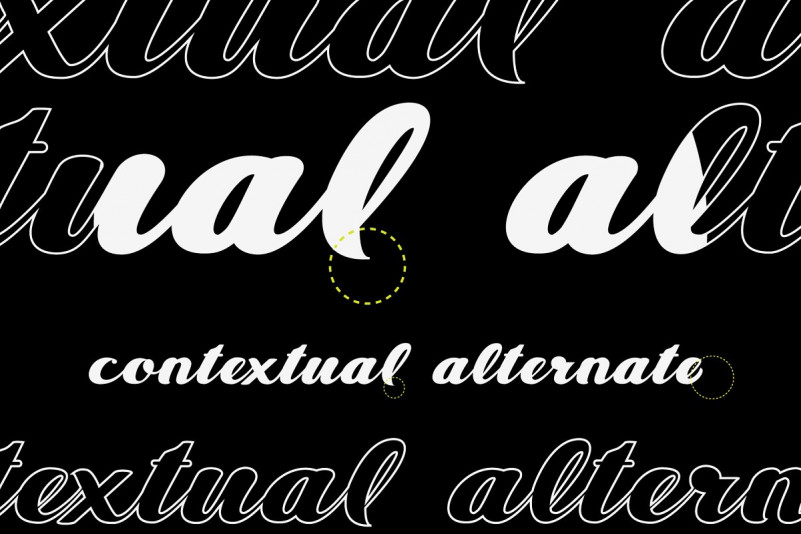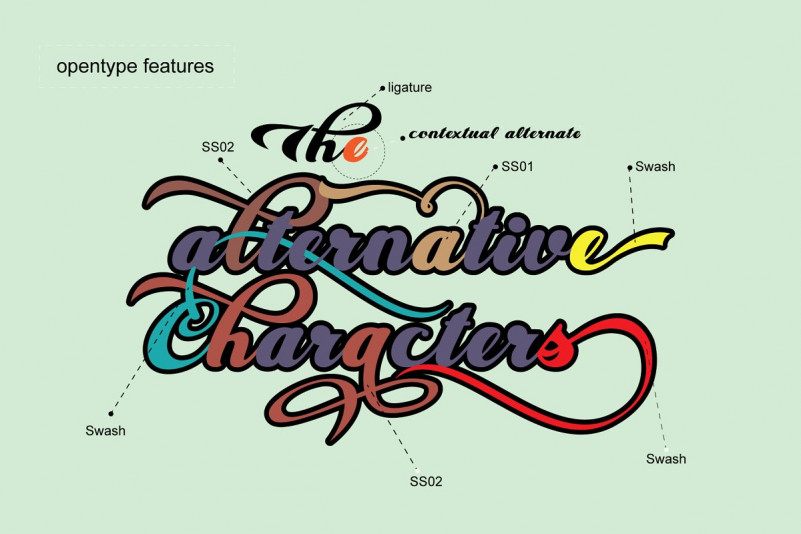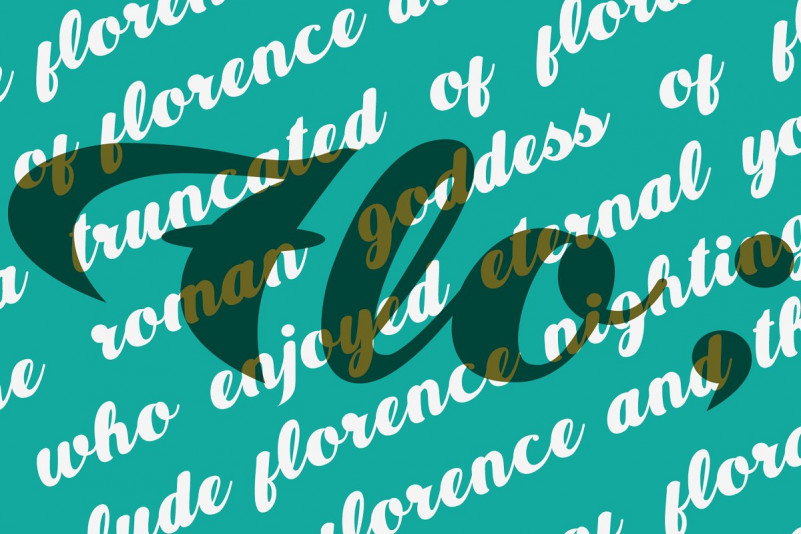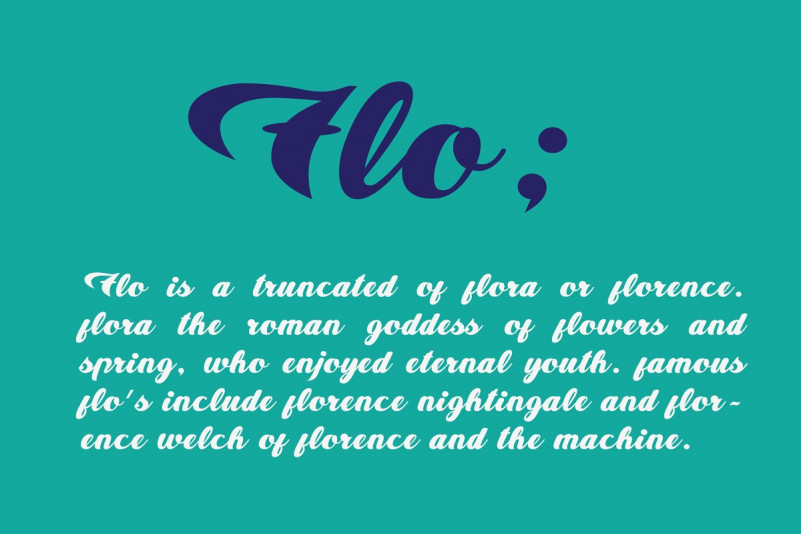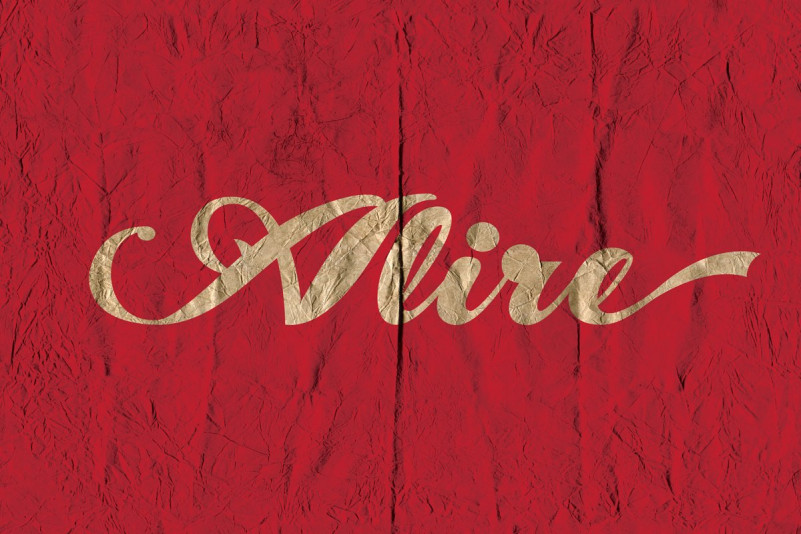
Alire Script Font
Alire Script – Free Demo
Dear All. This is a bold connected script. fresh, casual and fun. Made by hand written with many opentype features that you will like. Alire Font designed and shared by GIT. Alire Script is a cursive font. It inspired from the famous retro typography design. Total 518 glyphs crafted inside Alire Some OpenType Features. The Features includes: Stylistic Alternates, Swashes, Ligatures, Contextual and Stylistic Set. It’s perfect for many different projects such as logos & branding, invitation, stationery, wedding designs, social media posts, advertisements, product packaging, product designs, label, photography, watermark, special events or anything.